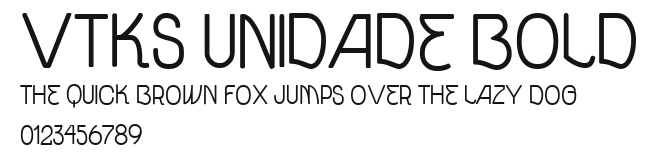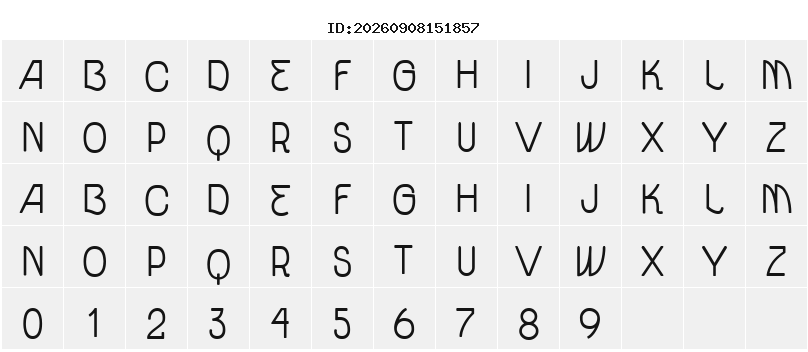
• Font Name: vtks unidade bold
• Font ID: vtks unidade:Version 1.00
• Full Font Name: vtks unidade bold
• Version: Version 1.00 December 6, 2010, initial release
• PostScript Name: vtksunidadebold
• Designer: douglas vitkauskas
• Manufacturer: douglas vitkauskas
About vtks unidade bold.ttf
vtks unidade bold.ttf is a modern, elegant sans-serif font designed for ultimate readability and visual harmony. Perfect for branding, headlines, web design, and print materials.